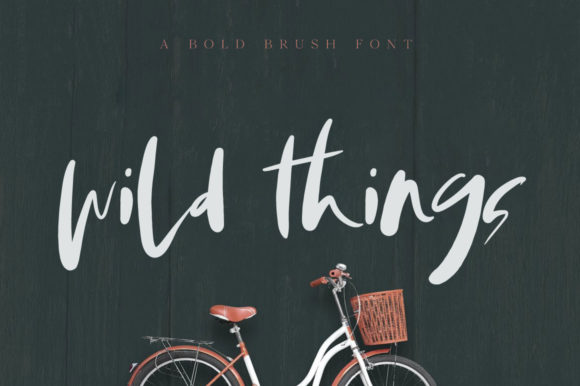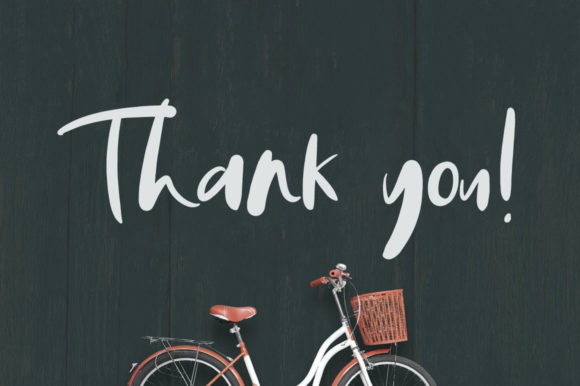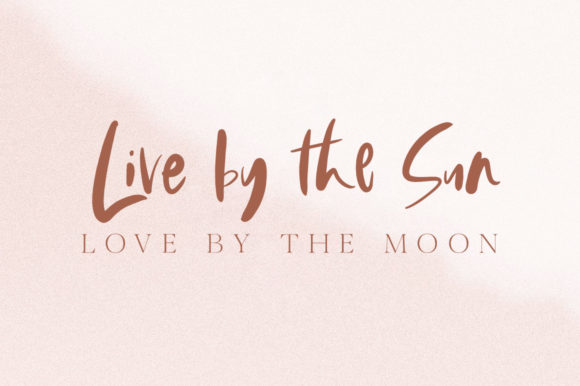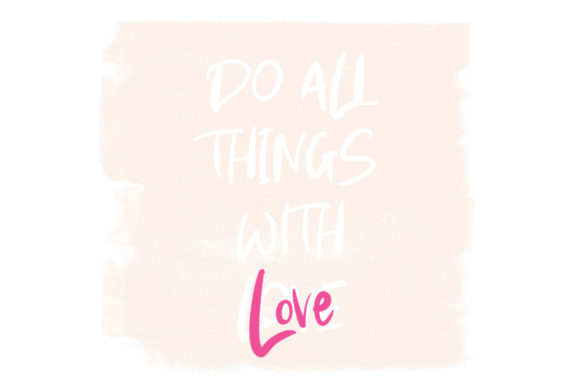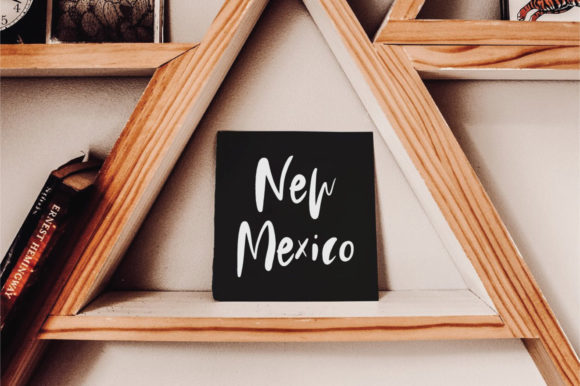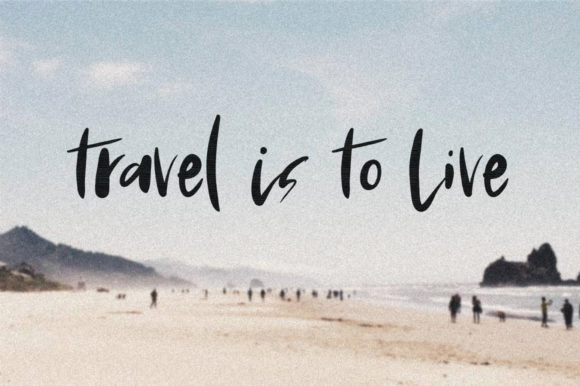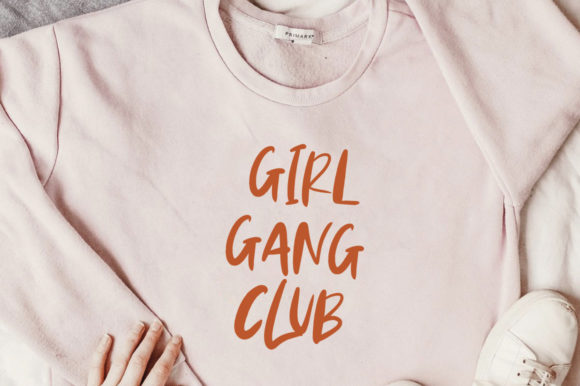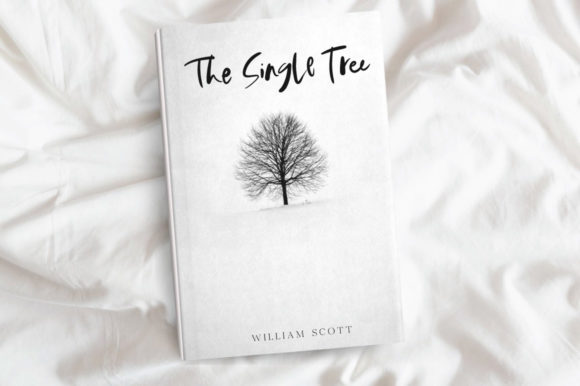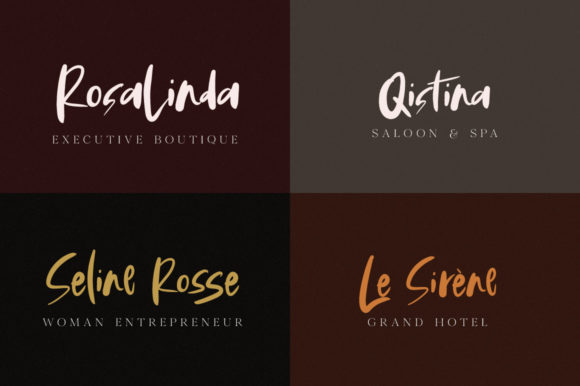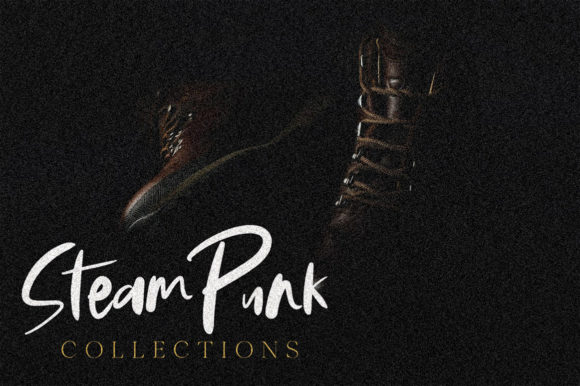
Wild Things Font
About Wild Things Font
Wild Things is an adventurous and fun script with a sunny feel. It will inspire countless new design ideas with its organic feel.